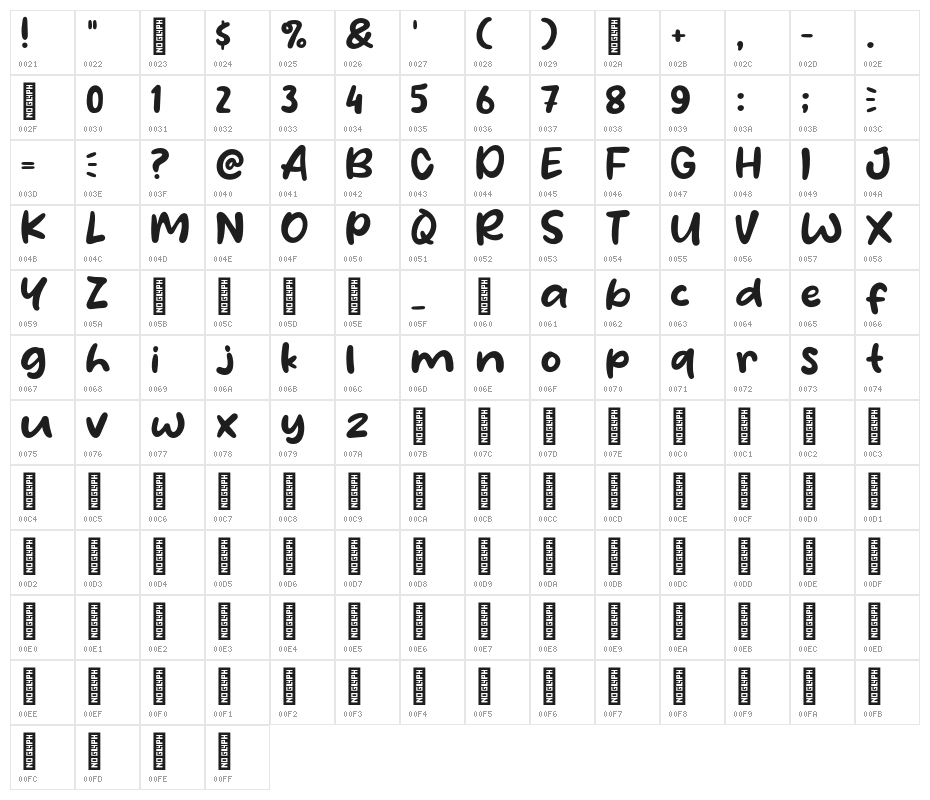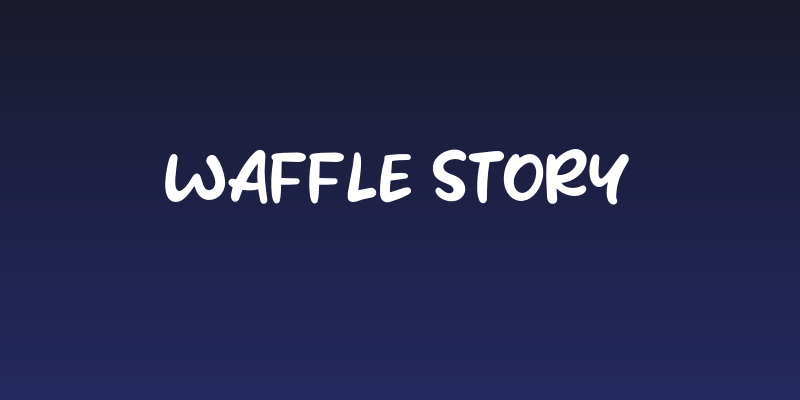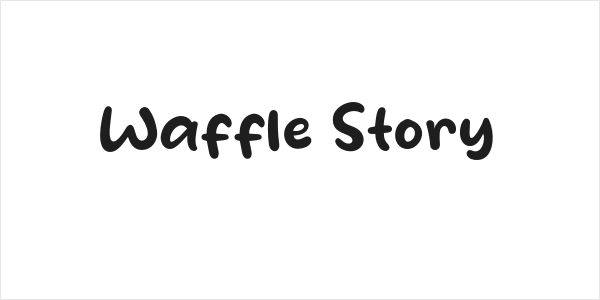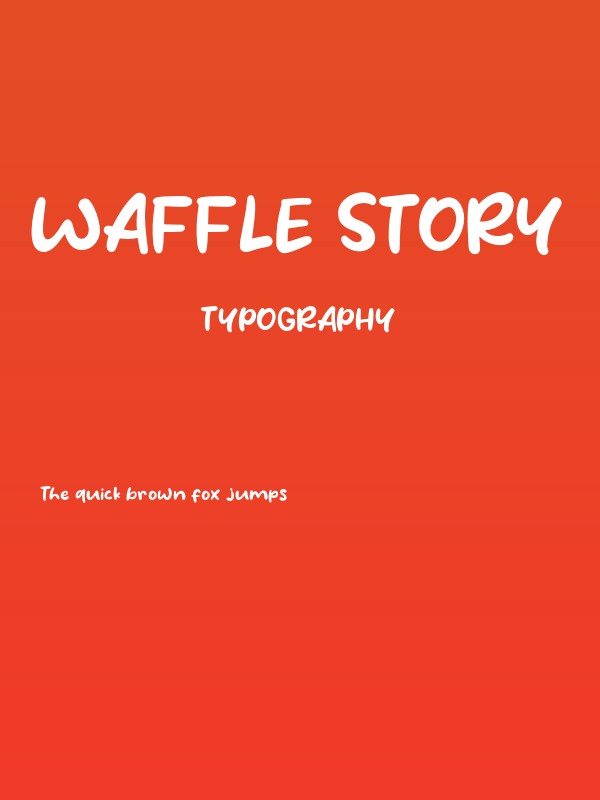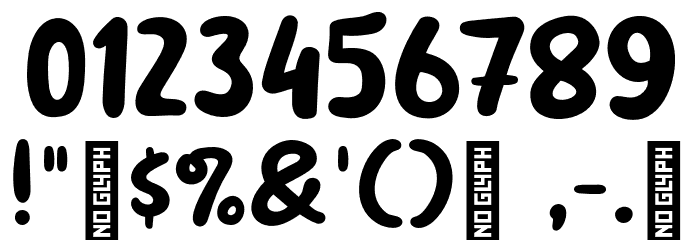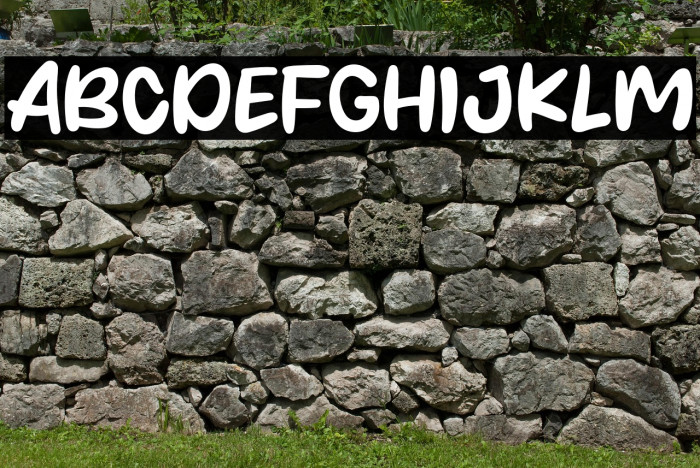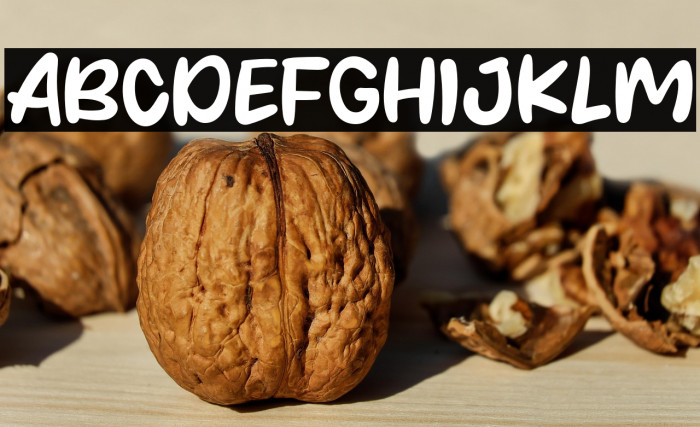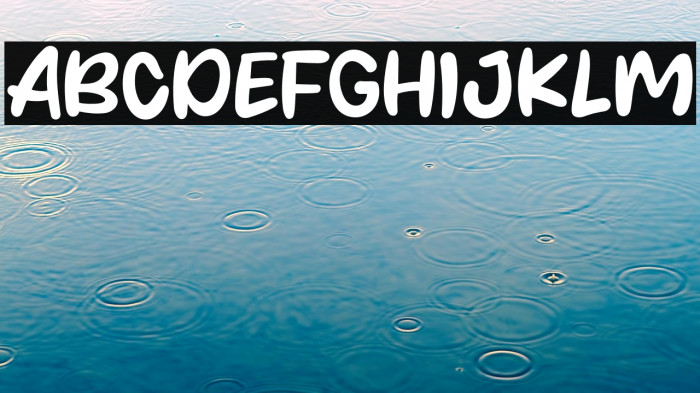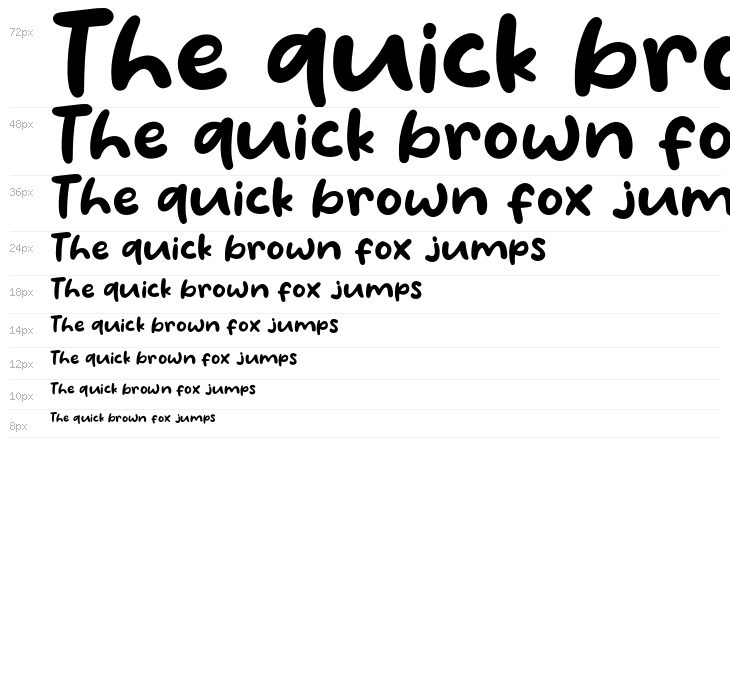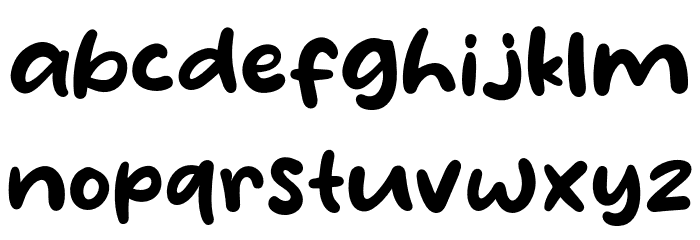
Waffle Story Font
Waffle Story Description
This playful and energetic font features a handwritten style with bold, rounded strokes that convey a sense of fun and informality. The characters are slightly irregular, adding to the casual and approachable feel. The uppercase and lowercase letters maintain a consistent weight, creating a harmonious look across the alphabet. Numbers and special characters are included, matching the overall style with their rounded and friendly appearance. This font is ideal for projects that require a personal touch or a whimsical aesthetic, such as children's books, playful branding, or creative invitations.
| Use Case | Headlines, Logos, Casual text. |
| Proposed Projects | Children's books, playful branding, creative invitations, casual posters. |